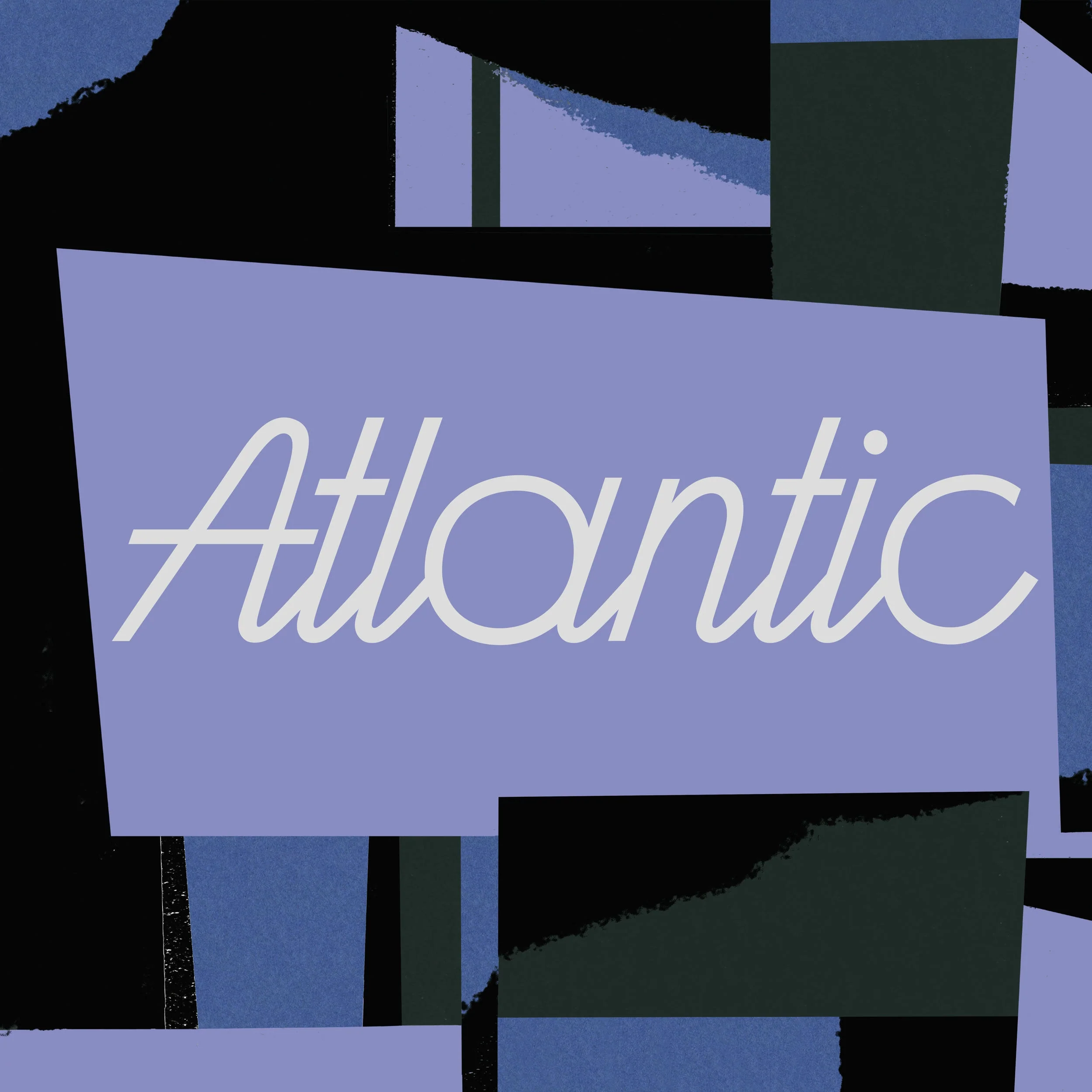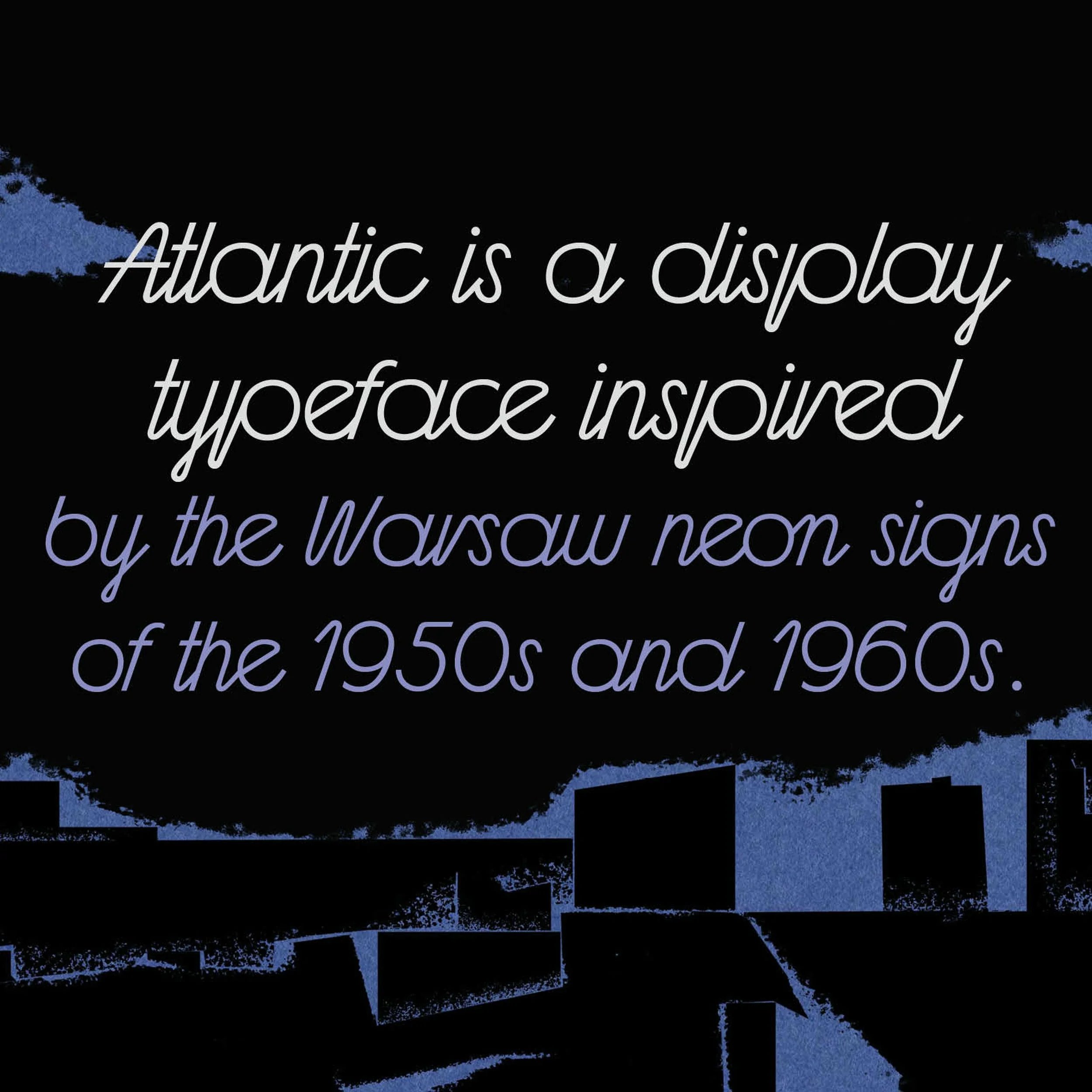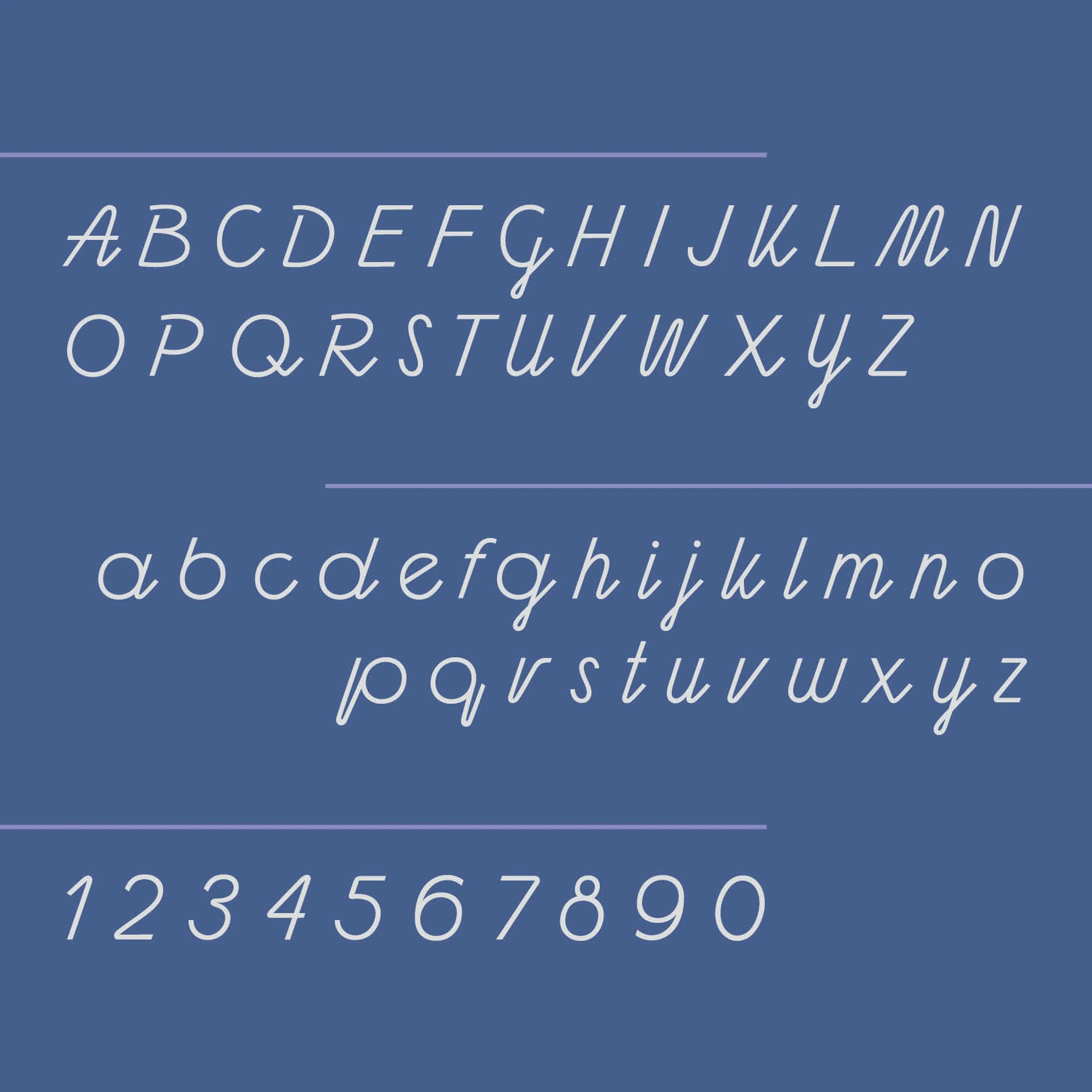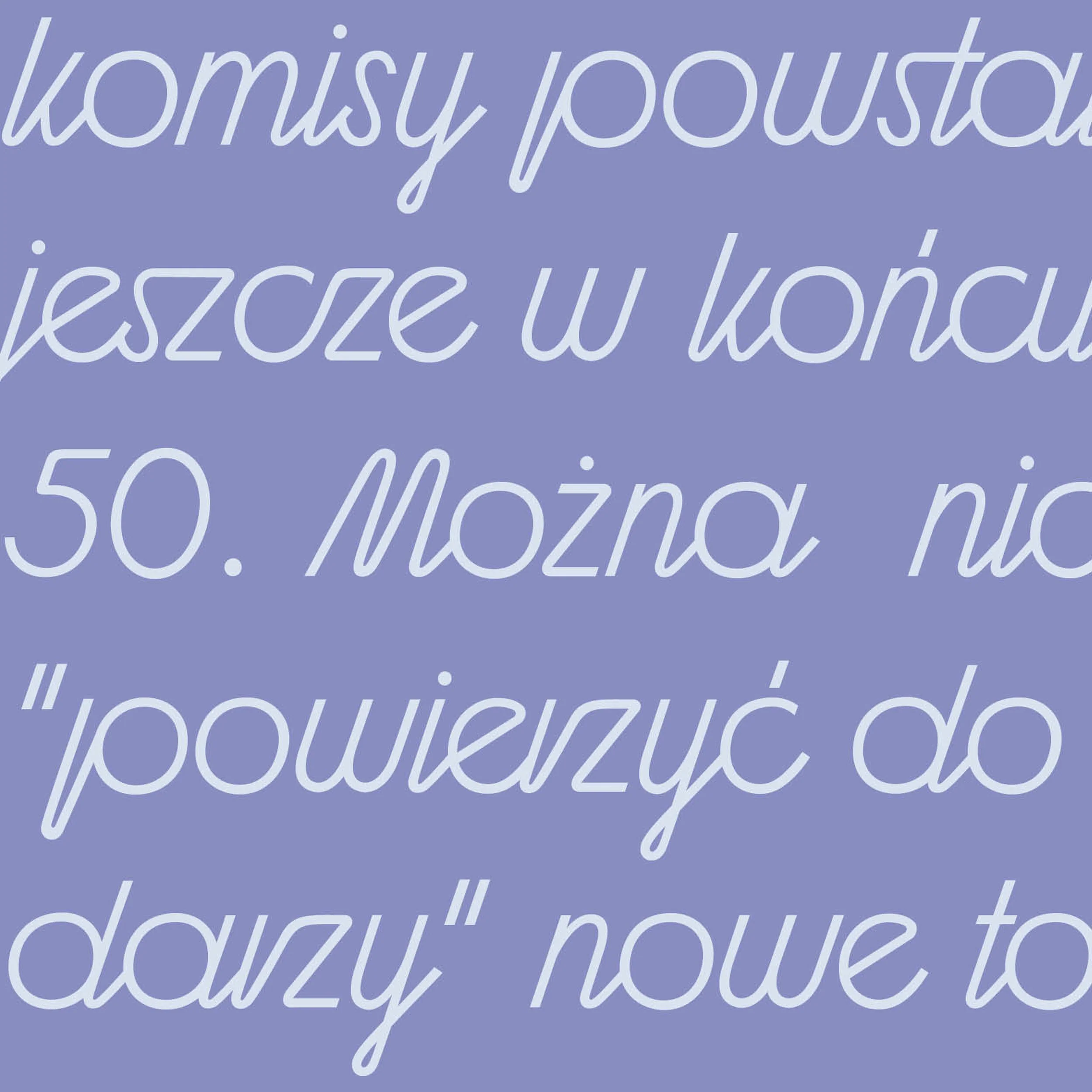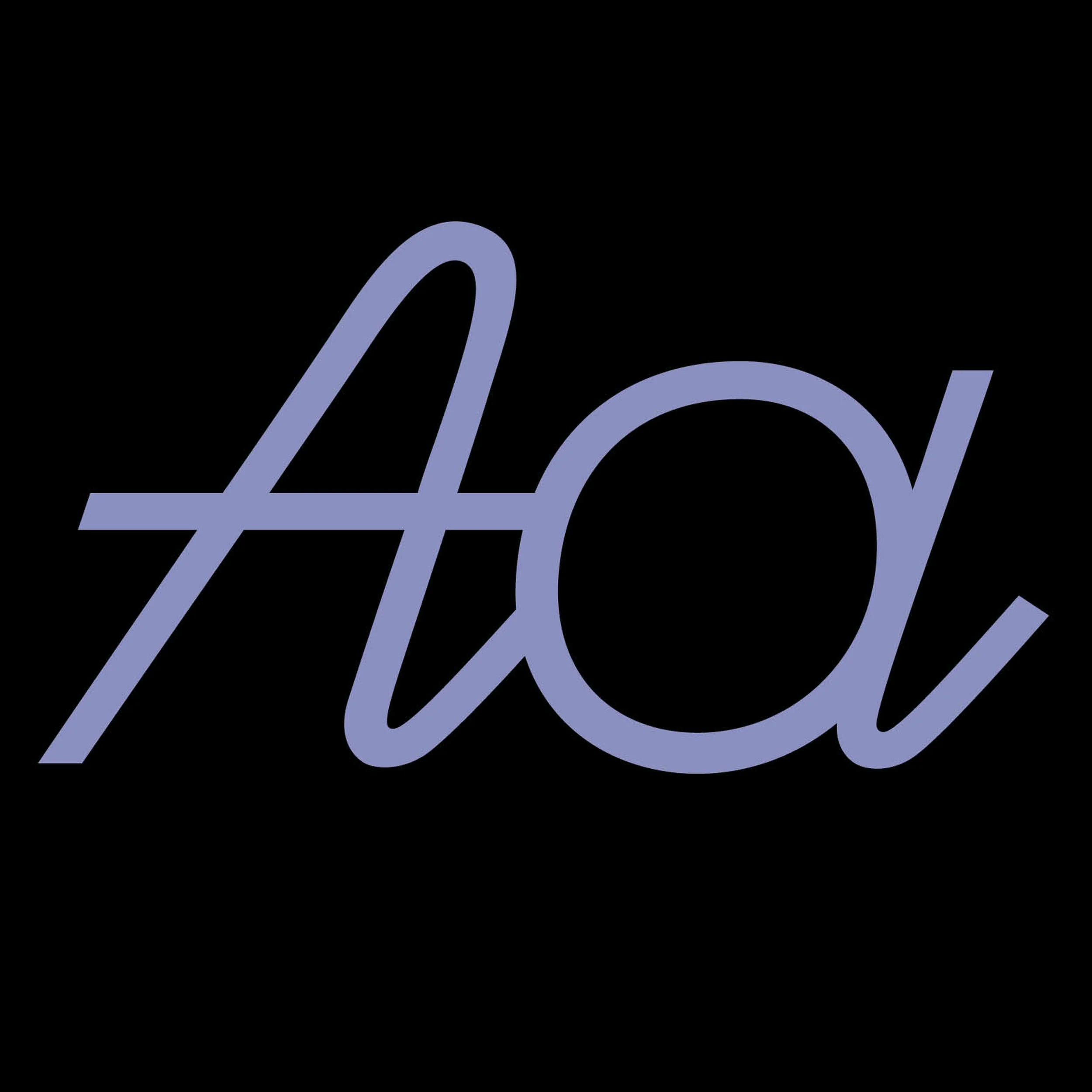
Atlantic
Atlantic is a captivating display font inspired by the iconic Warsaw neon signs of the 1950s and 1960s. Named after the renowned Atlantic Cinema on Chmielna Street in Warsaw, this font pays homage to the cinema's legendary neon sign, a symbol of the era's vibrant urban culture.
Atlantic captures the essence of mid-century neon artistry with its design, making it perfect for projects that seek to evoke a retro yet timeless aesthetic.
Atlantic
Atlantic is a captivating display font inspired by the iconic Warsaw neon signs of the 1950s and 1960s. Named after the renowned Atlantic Cinema on Chmielna Street in Warsaw, this font pays homage to the cinema's legendary neon sign, a symbol of the era's vibrant urban culture.
Atlantic captures the essence of mid-century neon artistry with its design, making it perfect for projects that seek to evoke a retro yet timeless aesthetic.
Atlantic is a captivating display font inspired by the iconic Warsaw neon signs of the 1950s and 1960s. Named after the renowned Atlantic Cinema on Chmielna Street in Warsaw, this font pays homage to the cinema's legendary neon sign, a symbol of the era's vibrant urban culture.
Atlantic captures the essence of mid-century neon artistry with its design, making it perfect for projects that seek to evoke a retro yet timeless aesthetic.